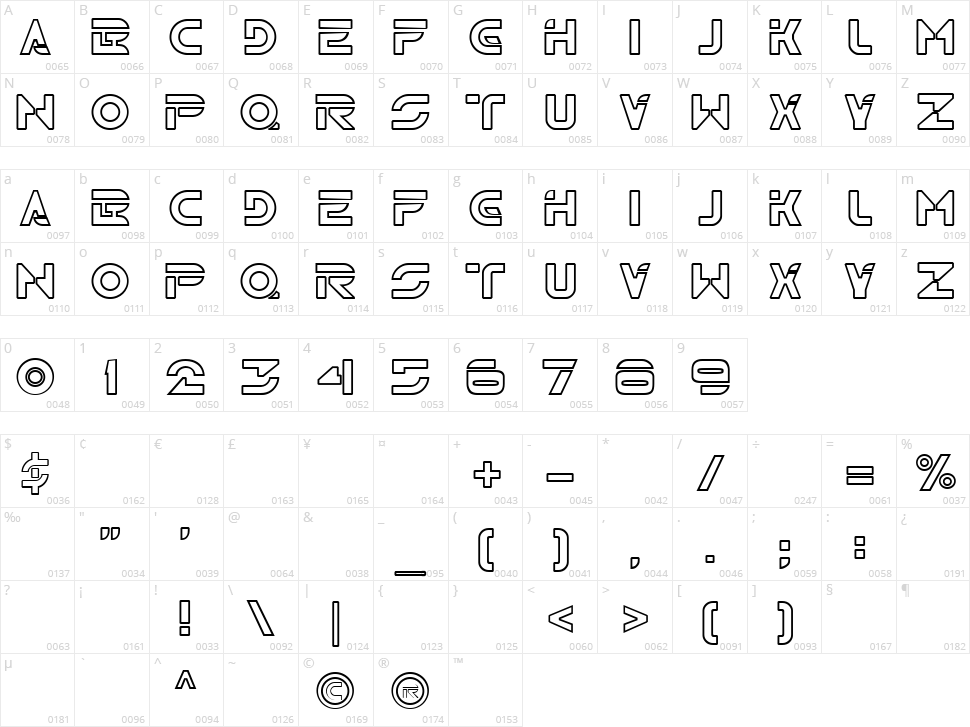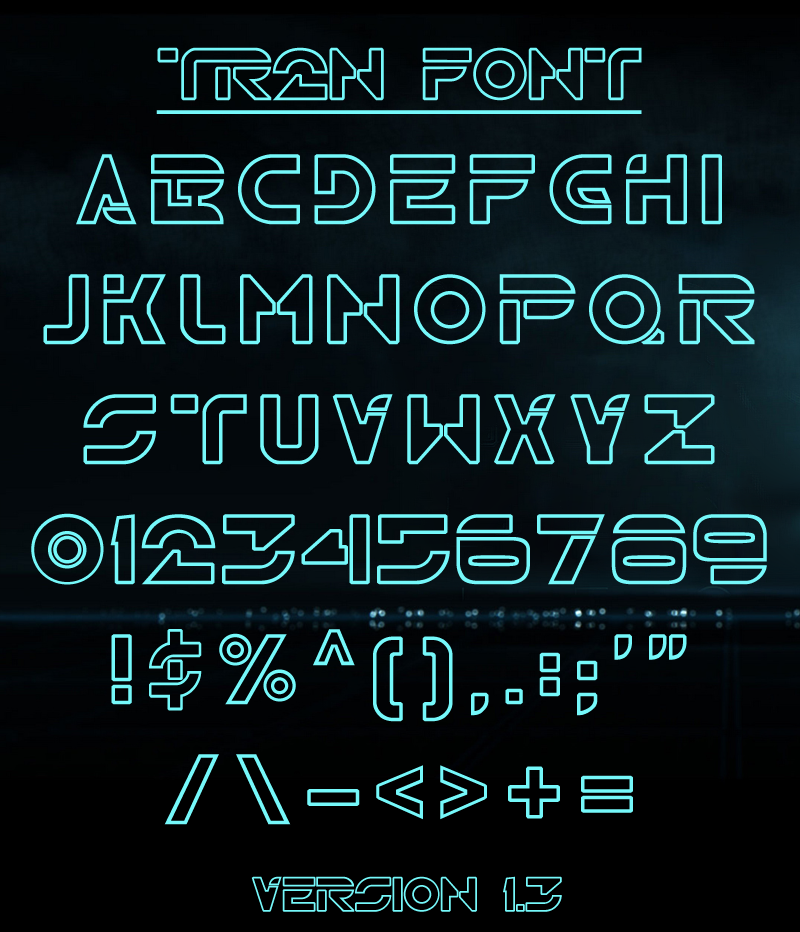
TR2N
TR2N v1.3ABOUT THE FONT:A font based upon the poster text for TRON LEGACY.The font is different from the pre-existing TRON font currently on the web. Similar in minor aspects but different in most. Style based upon text from different region posters.UPDATE HISTORY:3/7/11 - Adjusted the letter B (both lowercase and uppercase), capped off the ends of T, P and R, added a few more punctuation marks, as well as added the TR and TP ligature to allow for the solid bar connect as in the poster art.1/22/11 - Made minor corrections to all previous letters and punctuation. Corrected issue with number 8's top filling in.ABOUT THE AUTHOR: